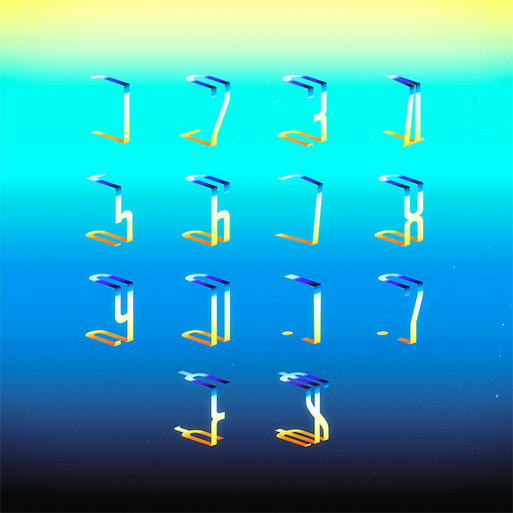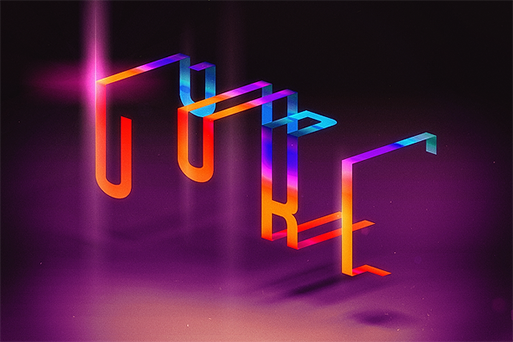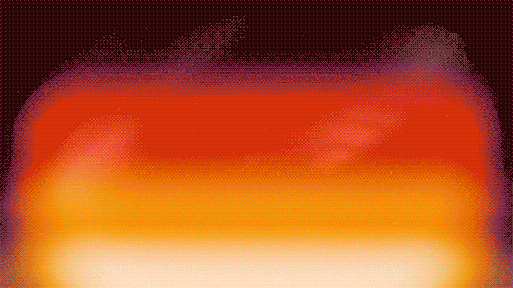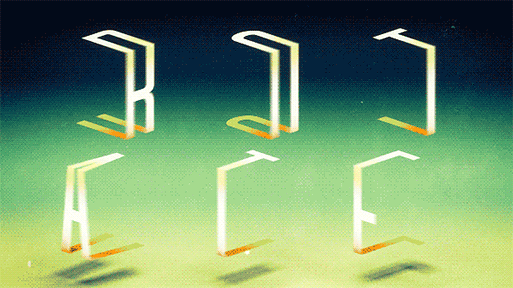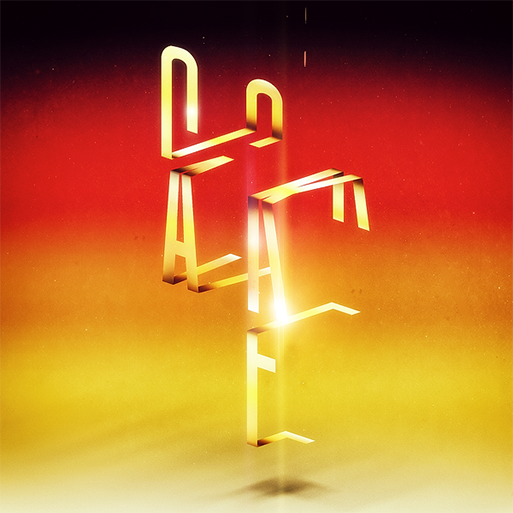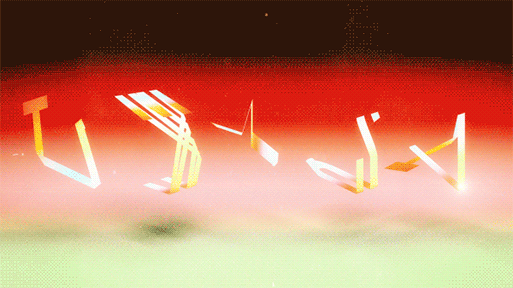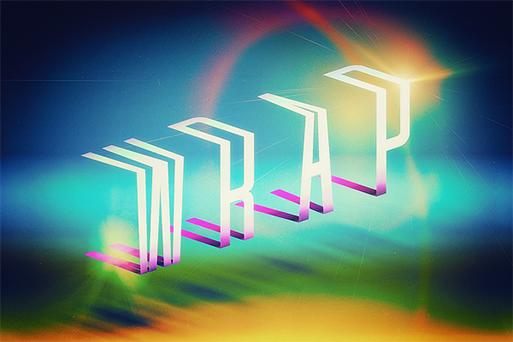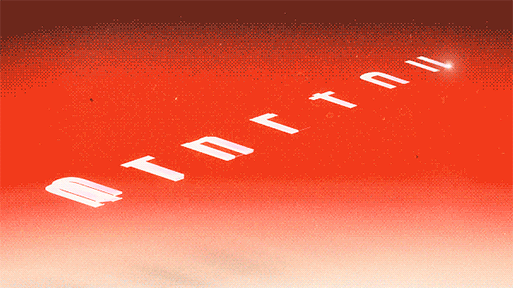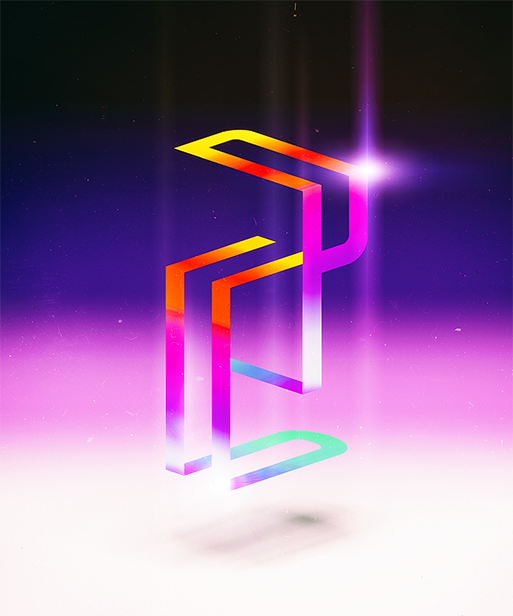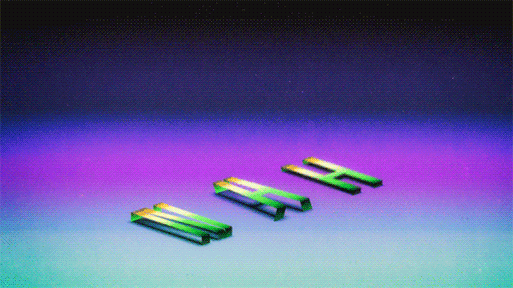
Ari Weinkle will fold and unfold the letterforms now and forever
“In my work, I look to break apart and re-appropriate different forms such as the human figure, geometric and organic shapes, and typography” says Ari Weinkle. The always experimental artist, animator, graphic designer and photographer is based in Boston yet his universe is unique and pretty out of this world. “The system is simple; each letter is folded twice as if wrapped around a cube” he commented on Enfold, a smart as a whip typographic series created by folding letters that live, act and play like living creatures that inhabit his Typolandia. Check more of his stunning portfolio of works here.